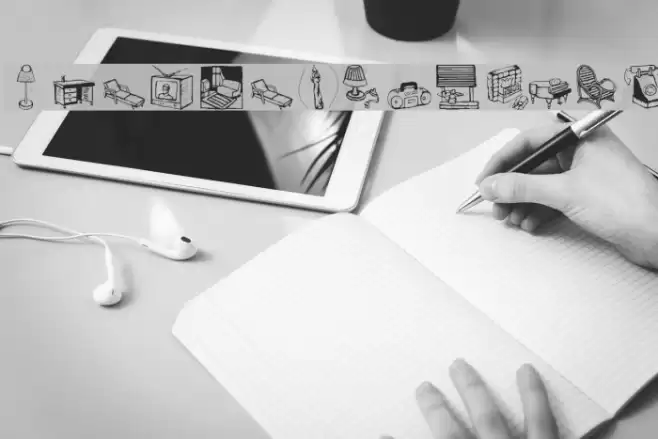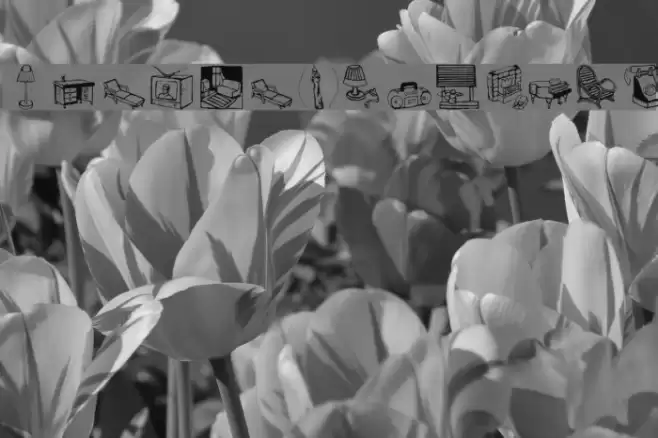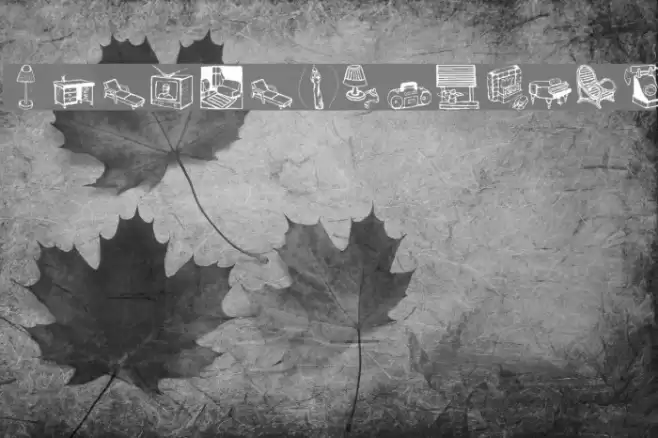
TheIkeaUniform Font
TheIkeaUniform Description
A decorative dingbat font featuring hand-drawn illustrations of various household furniture and decor items, each glyph representing a different object such as chairs, beds, lamps, clocks, and plants. The style is whimsical and sketch-like, with moderate line weight and playful details.
Hand-drawn furniture and decor illustrations as font glyphs from Dingbats fonts.
- Proposed Projects: Home decor branding, interior design presentations, playful invitations, scrapbooking, themed posters.
- Overall Style: Decorative, Whimsical
- Use Case: Icons, Decorative elements, Themed graphics